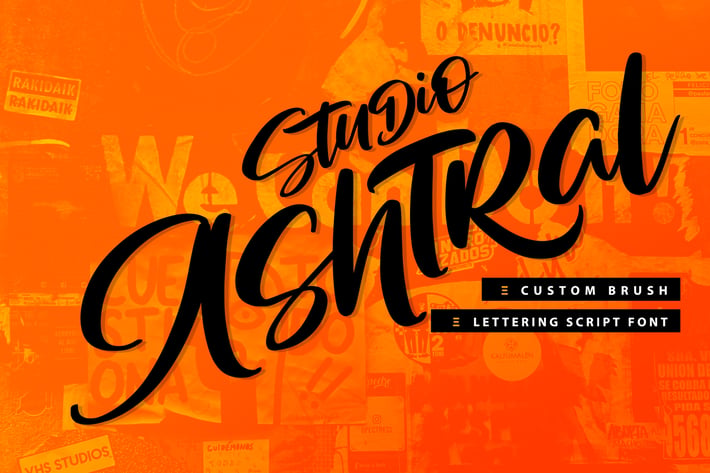
Studio Ashtral | Brush Lettering Script Font
Studio Ashtral | Brush Lettering Script Font with a calligraphy style, So beautiful on invitation like greeting cards, branding materials, business cards, quotes, posters, and more!